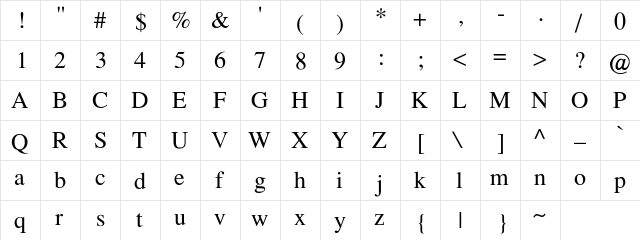
Dester Regular
Design Context for Dester Typeface
Dester offers clean, dependable letterforms without strong stylistic allegiance, making it a practical choice for designers who need flexibility.
Pro Tip: Use Dester in both headline and body roles to test its range before committing to a single application.